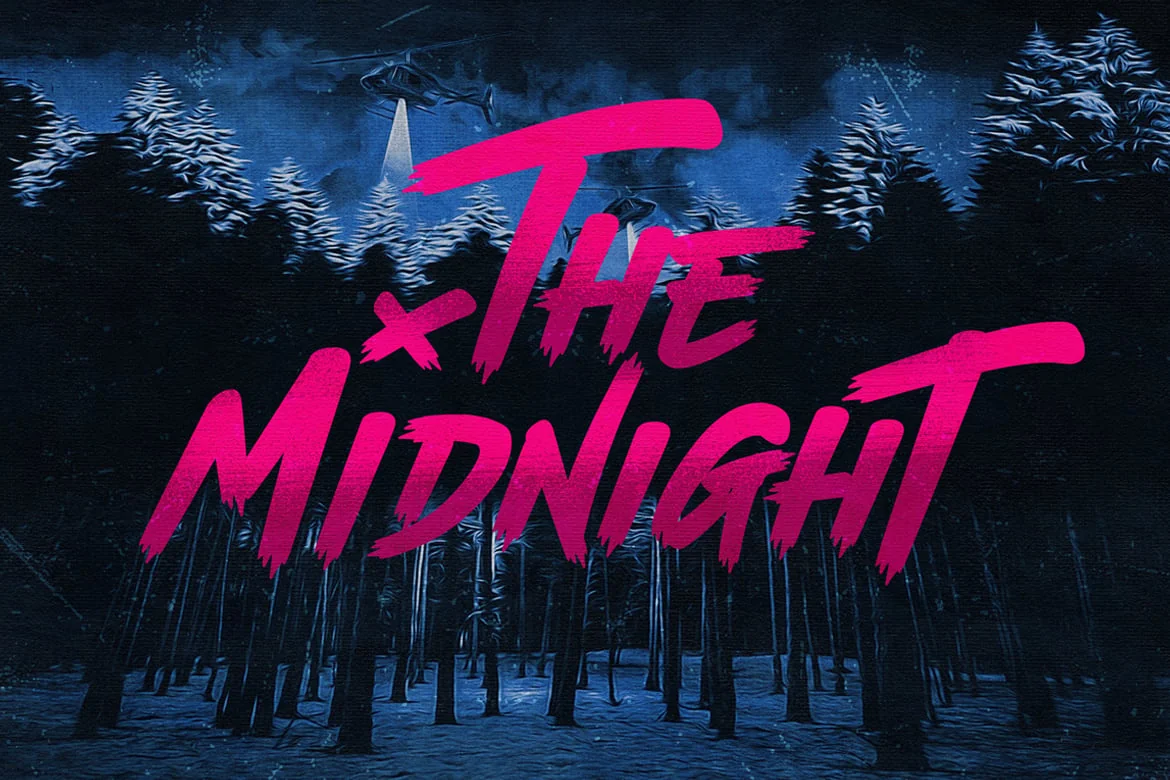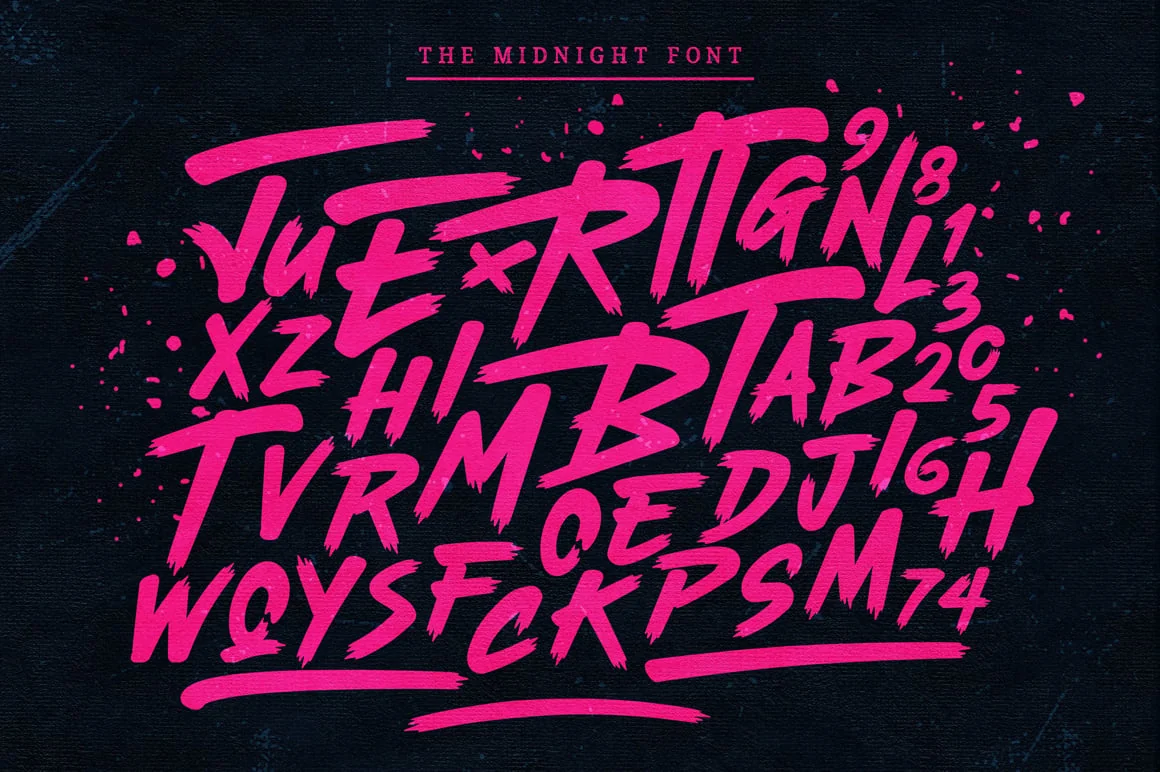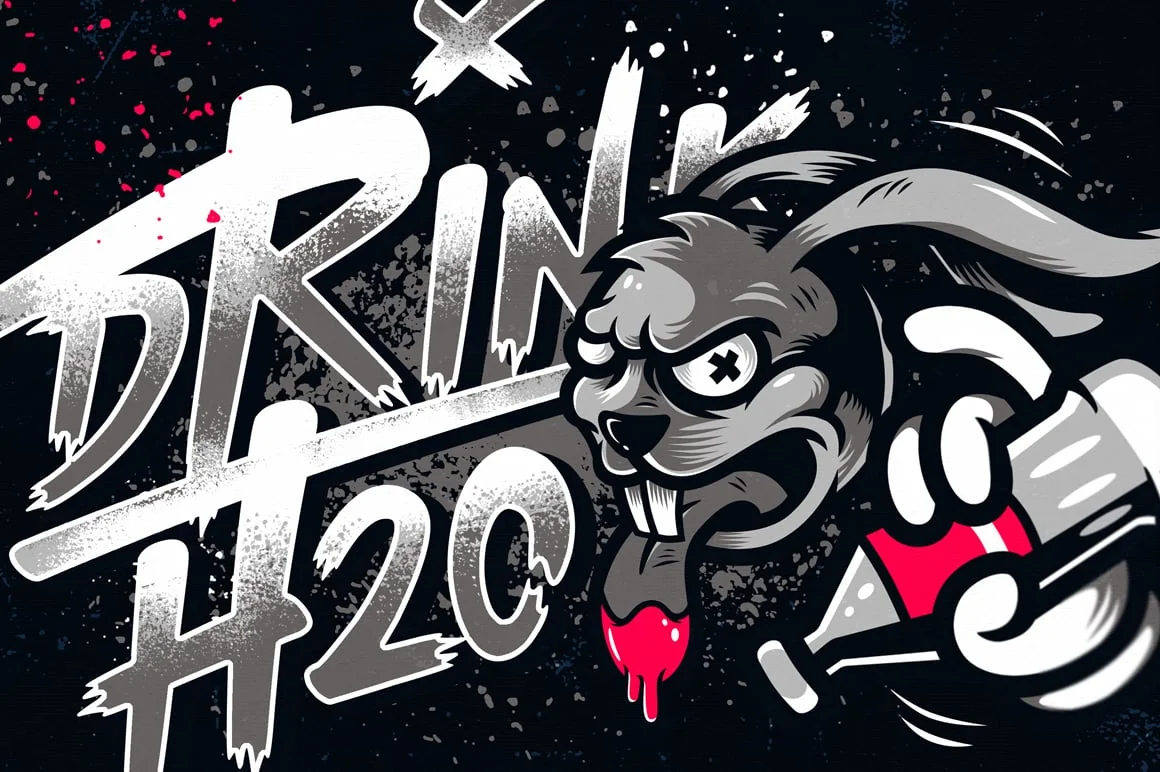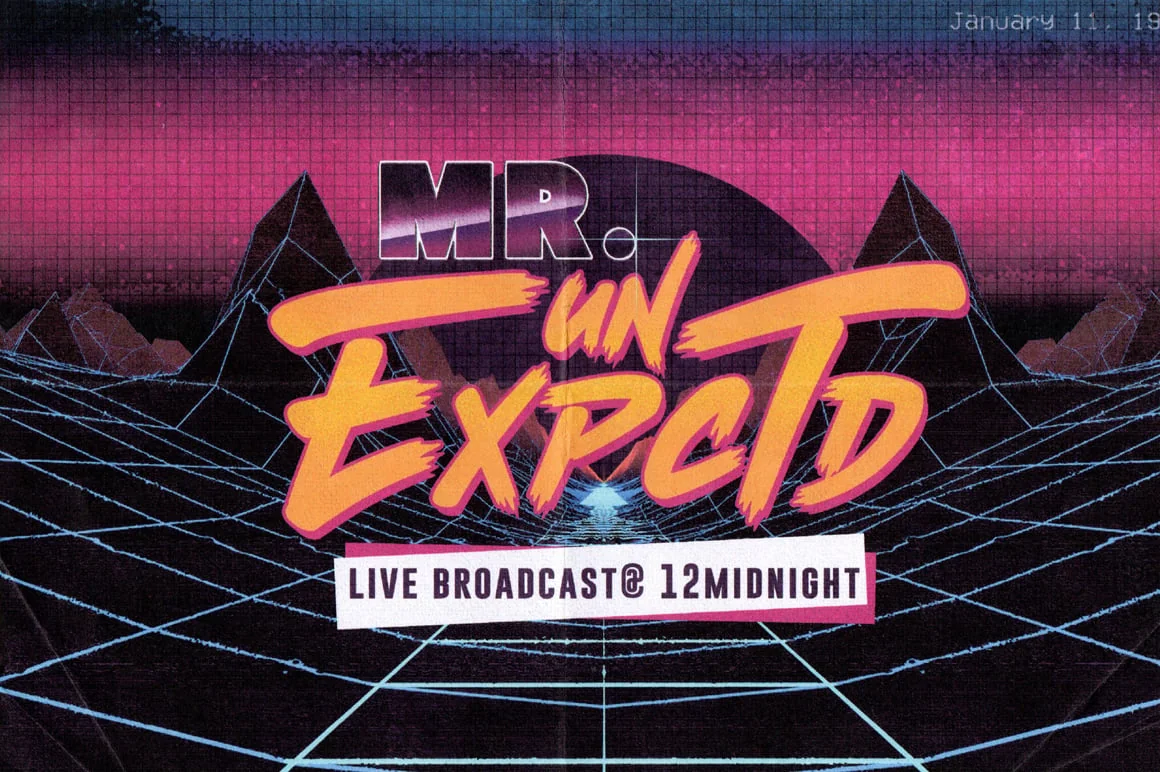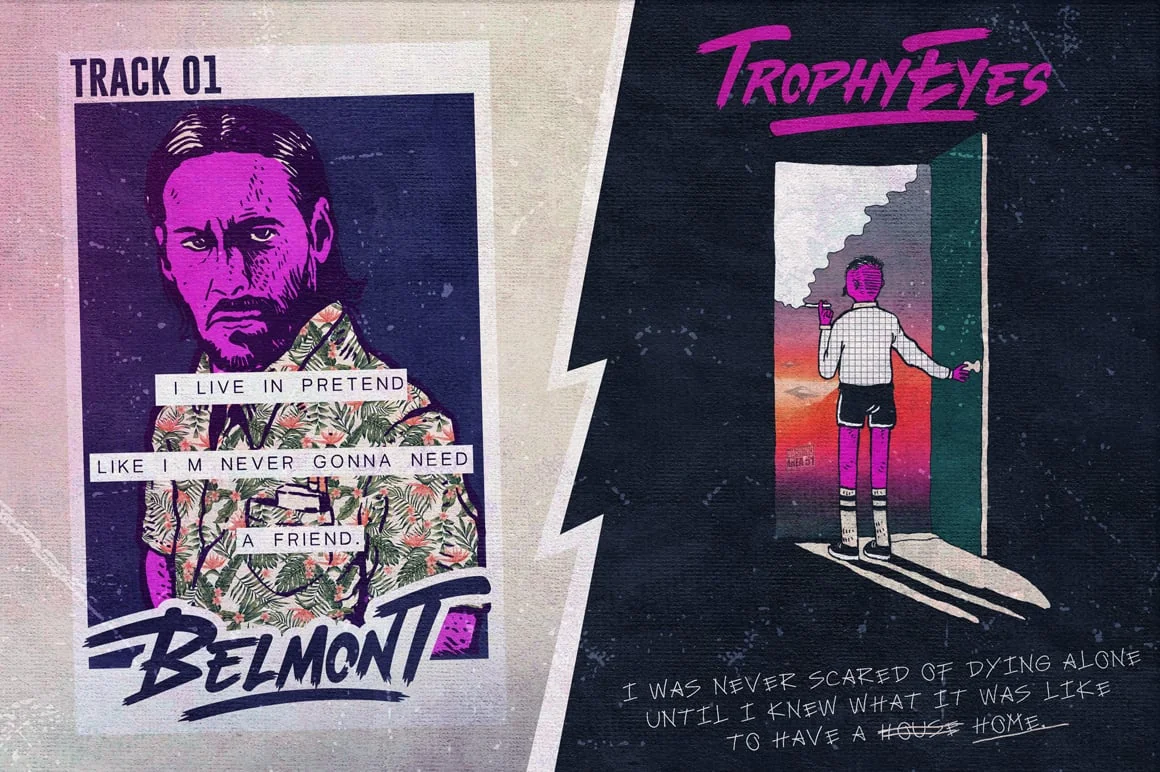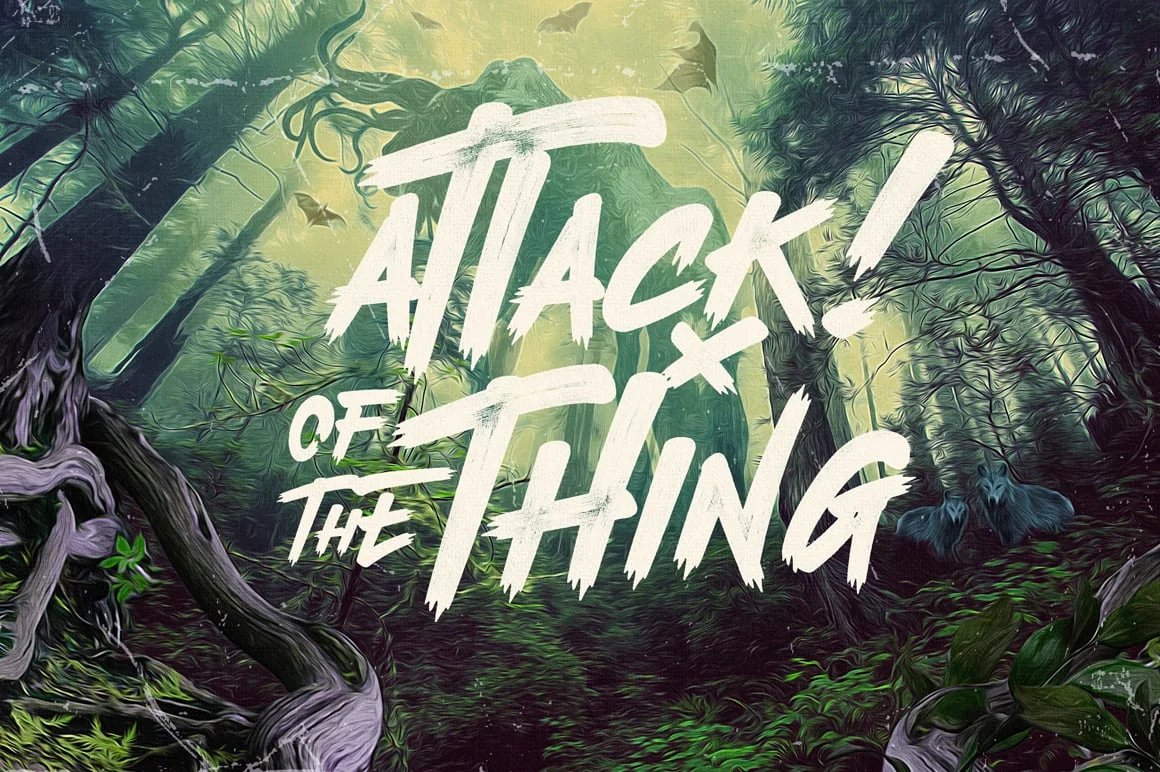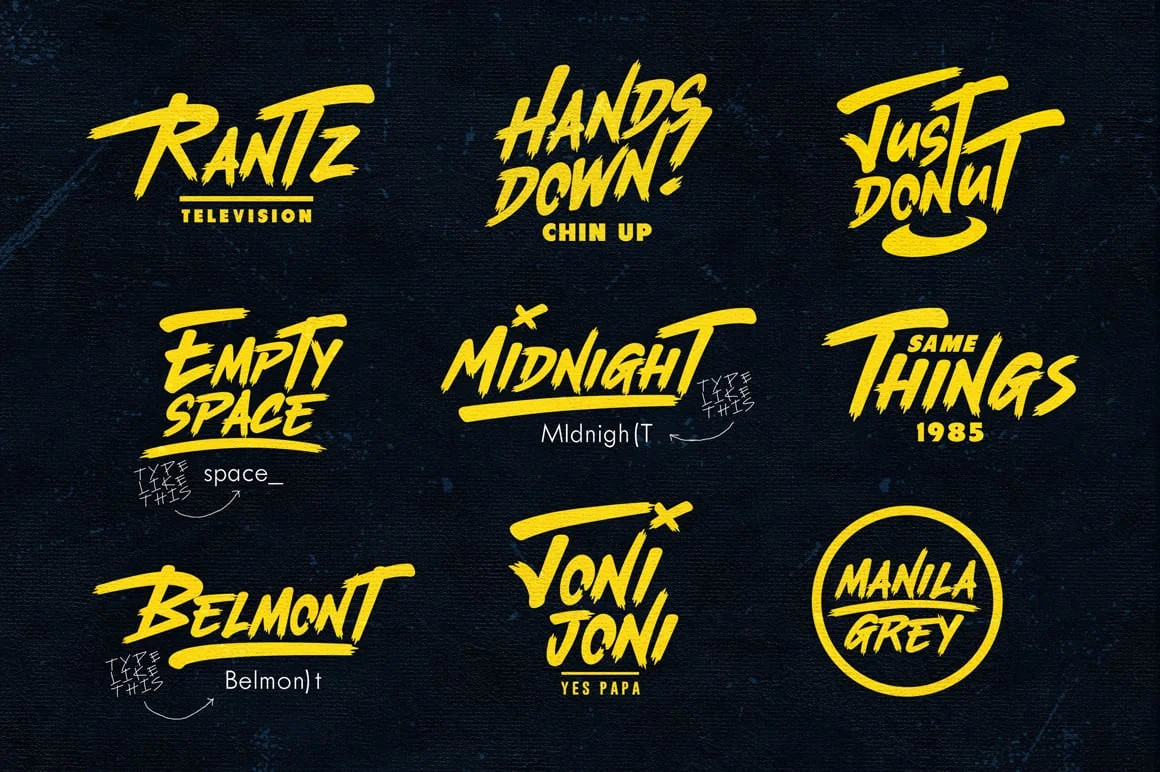
The Midnight – Font + Illustrations
The Midnight font is when horror and retro collides. No more boring mixtape covers and video thumbnails with this font. Pair it with your favorite Sans Serif and your designs will never be ignored!
Tips:
try combining the uppercase and lowercase letters (alternates: B, E, H, I, J, M, R, S, T, TT)
for the swash, try typing like this:
Belmon)t
Midnigh(T
space_